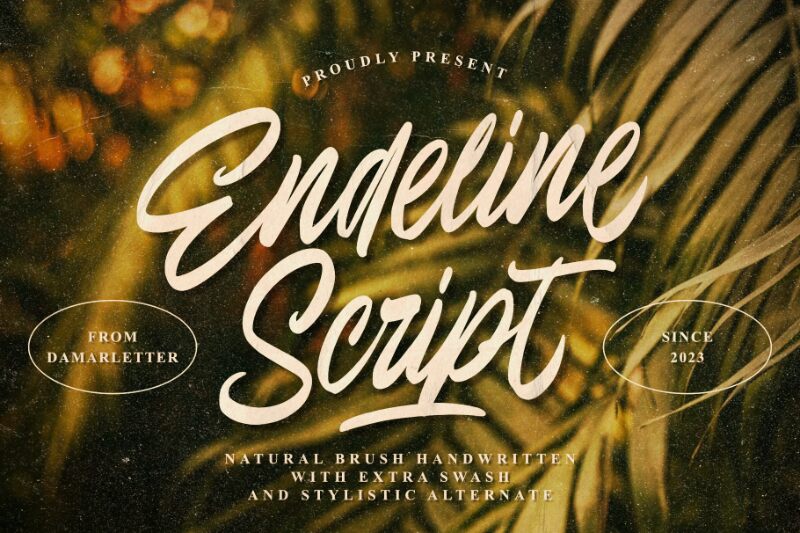
Endeline Script, crafted by Damarletter, exudes a personal touch with its handwritten style that feels both elegant and intimate. Its sweeping curves and flourishes evoke the charm of traditional calligraphy, while the fluidity of its characters suggests a modern ease of expression. This font's aesthetic appeal lies in its graceful movement and natural variation, as if penned by an artist with a flair for the romantic.
Perfect for occasions that call for a bespoke feel-such as wedding invitations, personalized stationery, or branding for boutique businesses-Endeline Script brings an air of sophistication to any project. Its expressive quality also makes it ideal for book covers, greeting cards, and any design space where a human touch adds invaluable warmth and character.